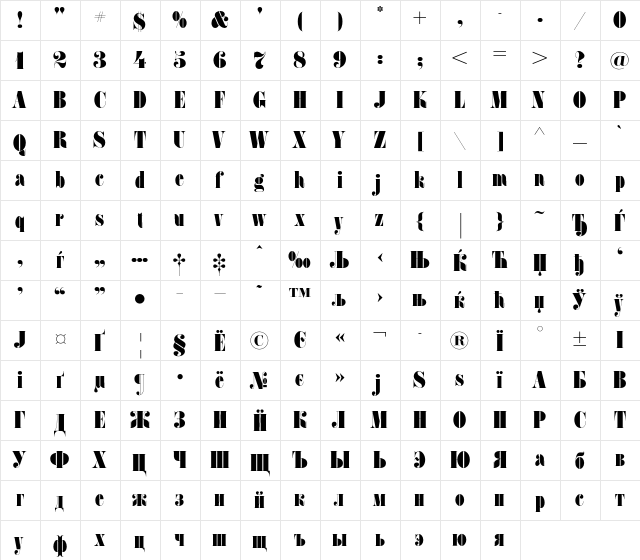
FatFaceC Regular
Design Context for FatFaceC Typeface
FatFaceC is a composed and adaptable typeface that performs quietly and consistently across a wide range of design contexts.